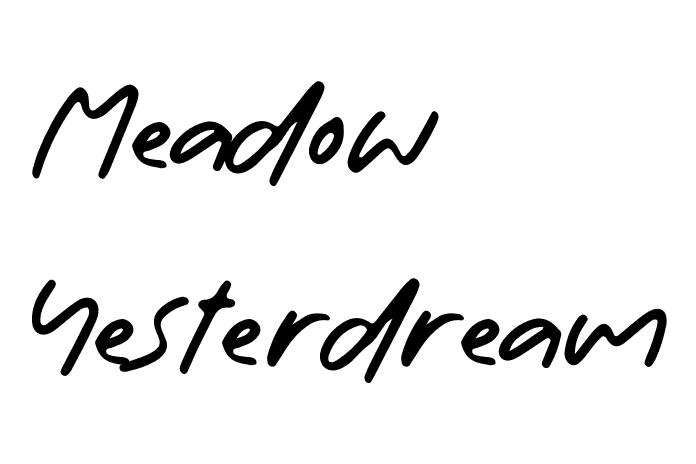
Baguette
Baguette font is perfect for product packaging, logo, invitation, stationery, branding project, label, photography, watermark, magazine, social media post, wedding, and mor.
Typeface classification Brush,Script